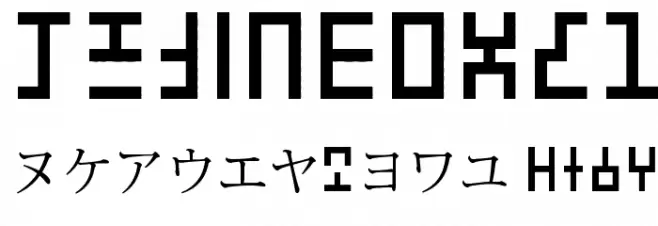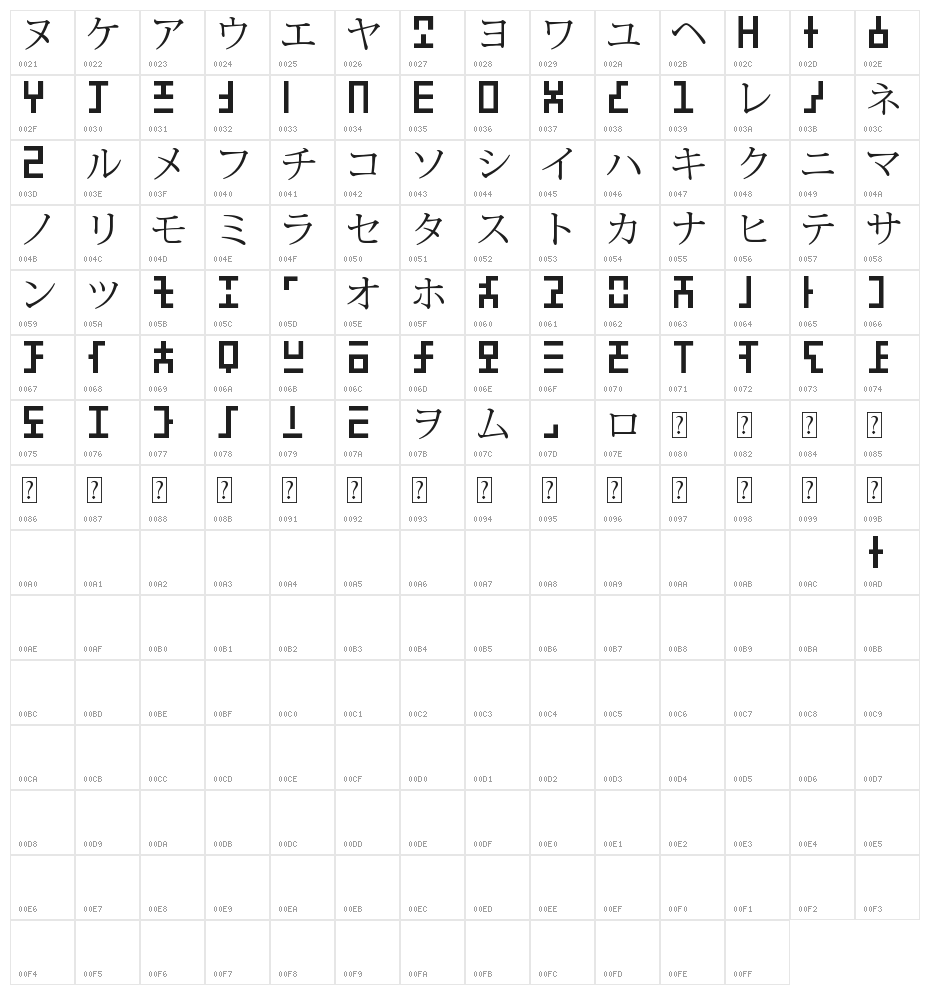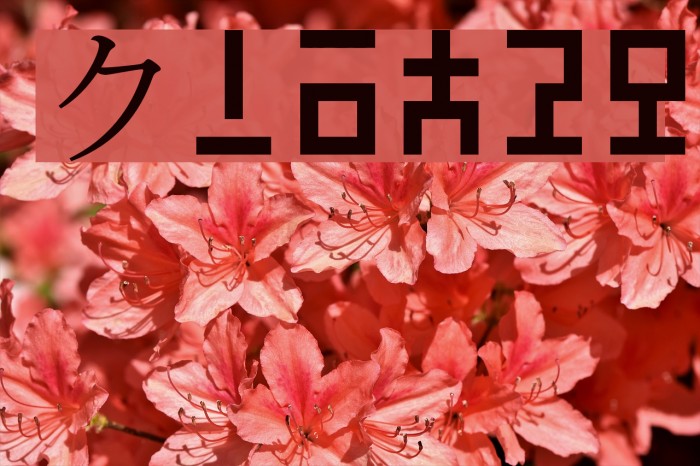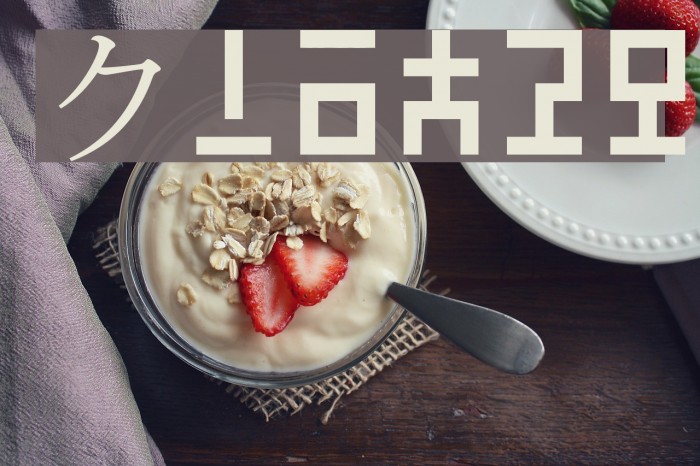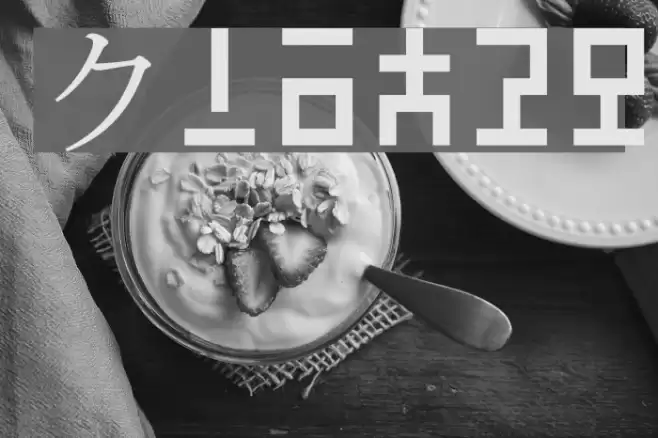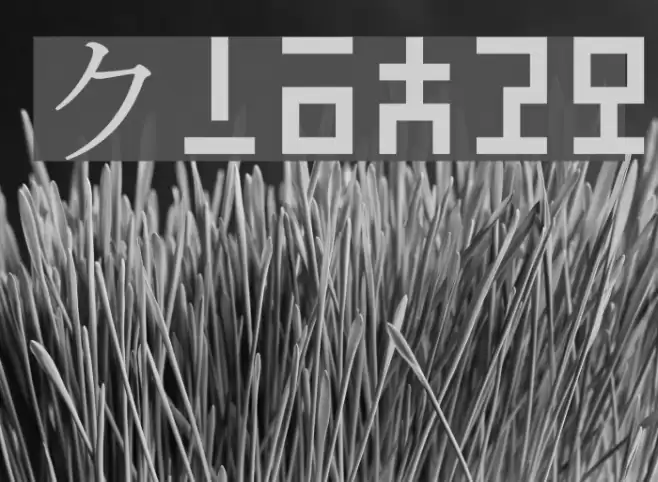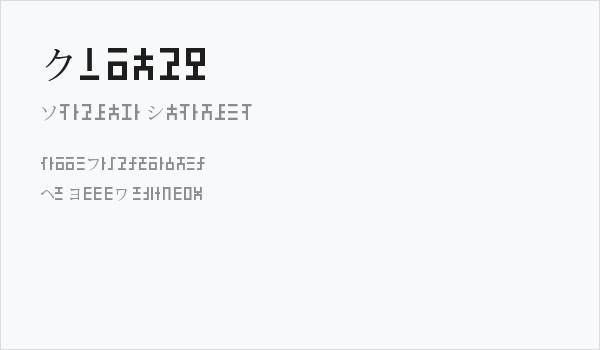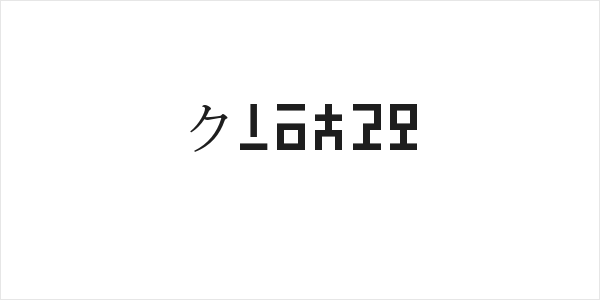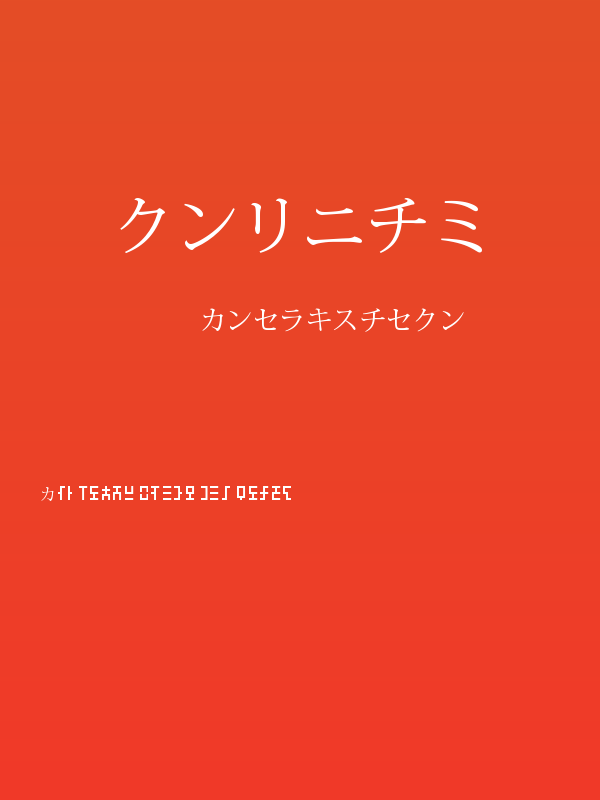
Hylian Font
Hylian Description
This font is a decorative script that draws inspiration from a fictional language, often associated with fantasy themes. It features angular, geometric shapes that resemble ancient runes or glyphs. The characters are bold and distinct, with a blocky appearance that gives them a strong visual presence. The font is designed to evoke a sense of mystery and adventure, making it ideal for use in creative projects that require a unique and thematic typeface. The characters are evenly spaced, ensuring readability while maintaining their stylistic flair.
| Use Case | Logos, Headlines, Themed Designs |
| Proposed Projects | Perfect for game design, fantasy book covers, themed posters, and creative branding. |